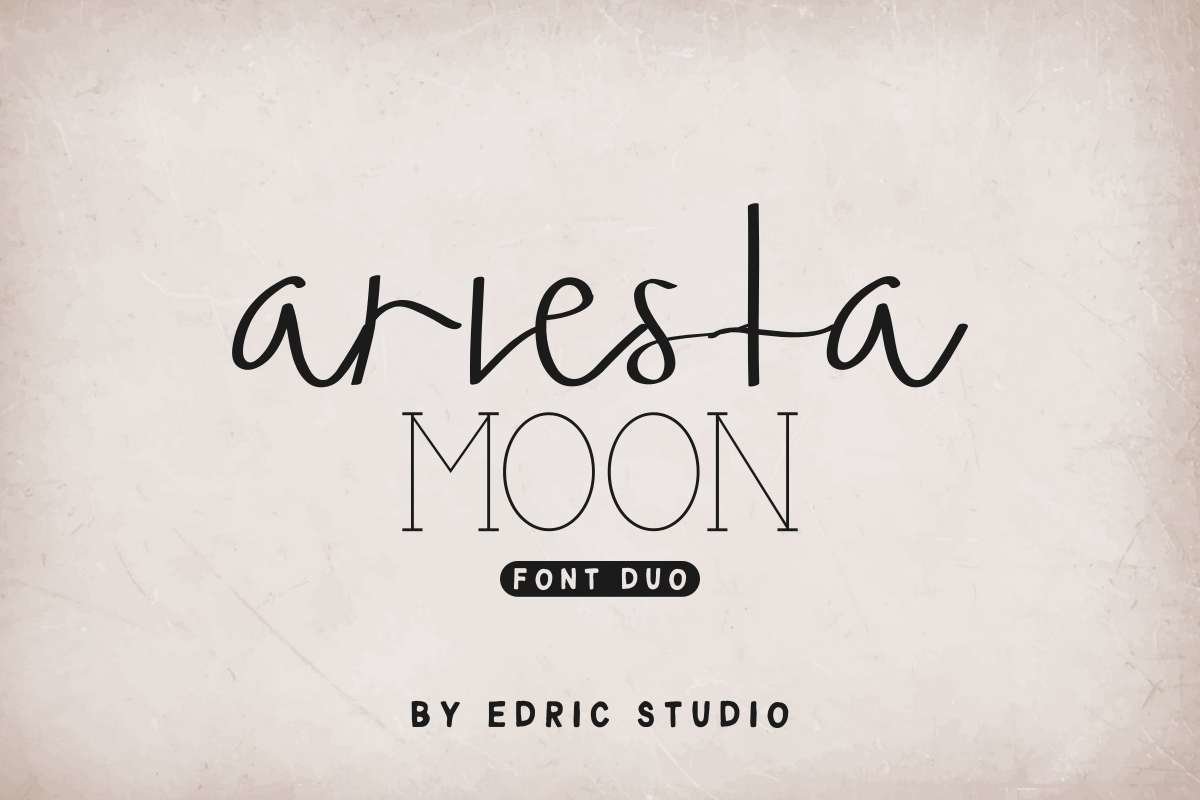
Ariesta Moon
Edric Studio in 2020 Present to you : Ariesta Moon Font DuoIt is a Handwriting Script plus Serif Typeface in a family font. It also support international languages characters. It works well on PC & Mac with Simple installations. Accessible in the Adobe Illustrator, Adobe Photoshop, Adobe InDesign, even work on Microsoft Word. It’s also PUA Encoded Characters – Fully accessible without additional design software.Ariesta Moon Font Duo is a script font and serif font. With elegant glyphs, carefully kerned and space arranged.Here’s what you will get on the zip package :